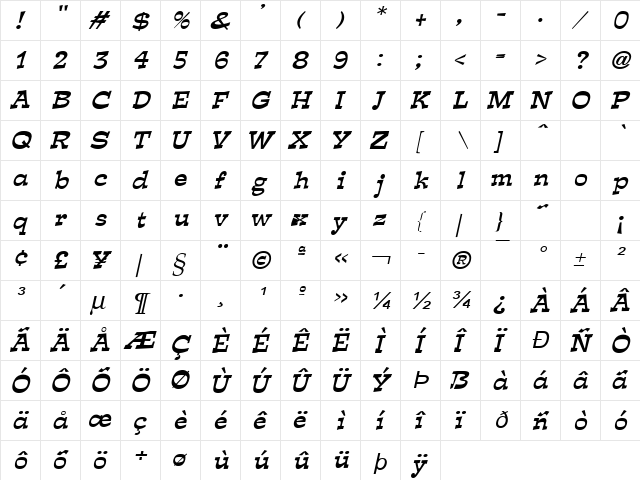
Expose Thin BoldItalic
Design Context for Expose Thin Typeface
Expose Thin offers clean, dependable letterforms without strong stylistic allegiance, making it a practical choice for designers who need flexibility. The dynamic lean of this cut emphasises speed and emphasis in any layout. The heavy weight commands attention and anchors typographic hierarchies.